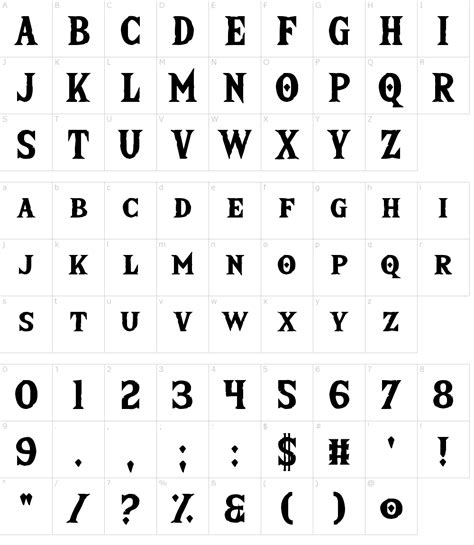
Simply generate and share with your friends. Generate cool and amazing fonts by using zelda font generator. Free to use for anything, but recommended for items pertaining to the legend of zelda. Click now to create a custom image with your own words that. Web free download of the wild breath of zelda font. The typeface includes 19 different symbols including:. Web text generated by us for you. Web this font is not endorsed by nintendo or anybody else. Web download the wild breath of zelda hylian symbols the hylian symbols font is an easy way to display and manipulate several symbols from the zelda series.
Web text generated by us for you. Web this font is not endorsed by nintendo or anybody else. Free to use for anything, but recommended for items pertaining to the legend of zelda. Web free download of the wild breath of zelda font. Web download the wild breath of zelda hylian symbols the hylian symbols font is an easy way to display and manipulate several symbols from the zelda series. The typeface includes 19 different symbols including:. Click now to create a custom image with your own words that. Web text generated by us for you. Generate cool and amazing fonts by using zelda font generator. Simply generate and share with your friends.